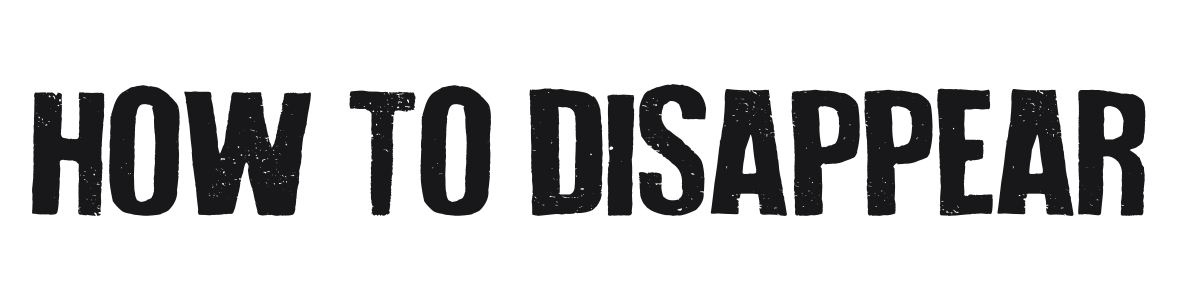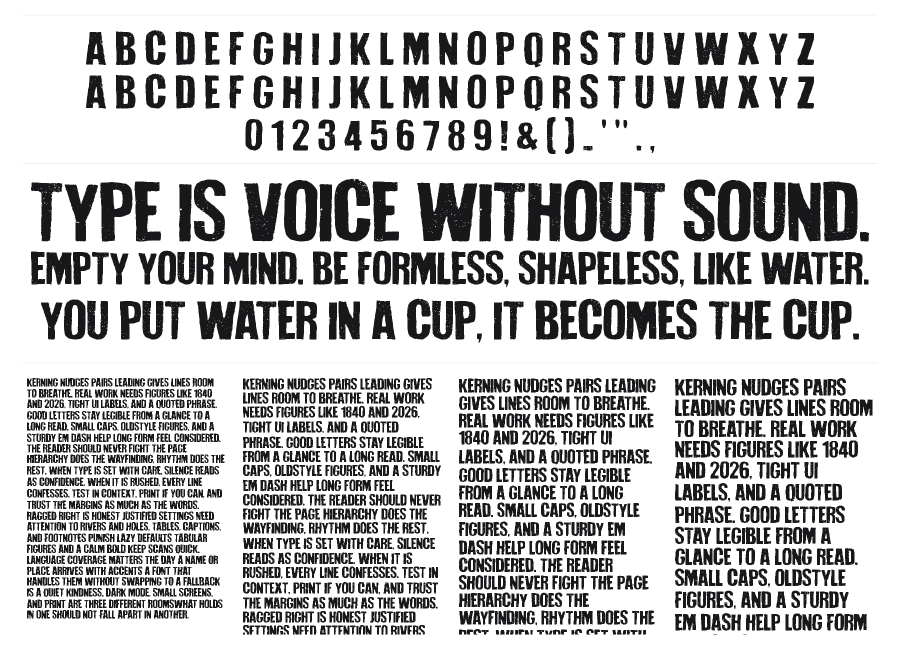
How To Disappear
How To Disappear is a heavy condensed sans with deep letterpress-style distressing that gives every character a rough, ink-soaked texture. The bold weight and tight spacing create an urgent, imposing block of text that commands attention on posters and album art. It carries the raw energy of DIY print culture without veering into illegibility.